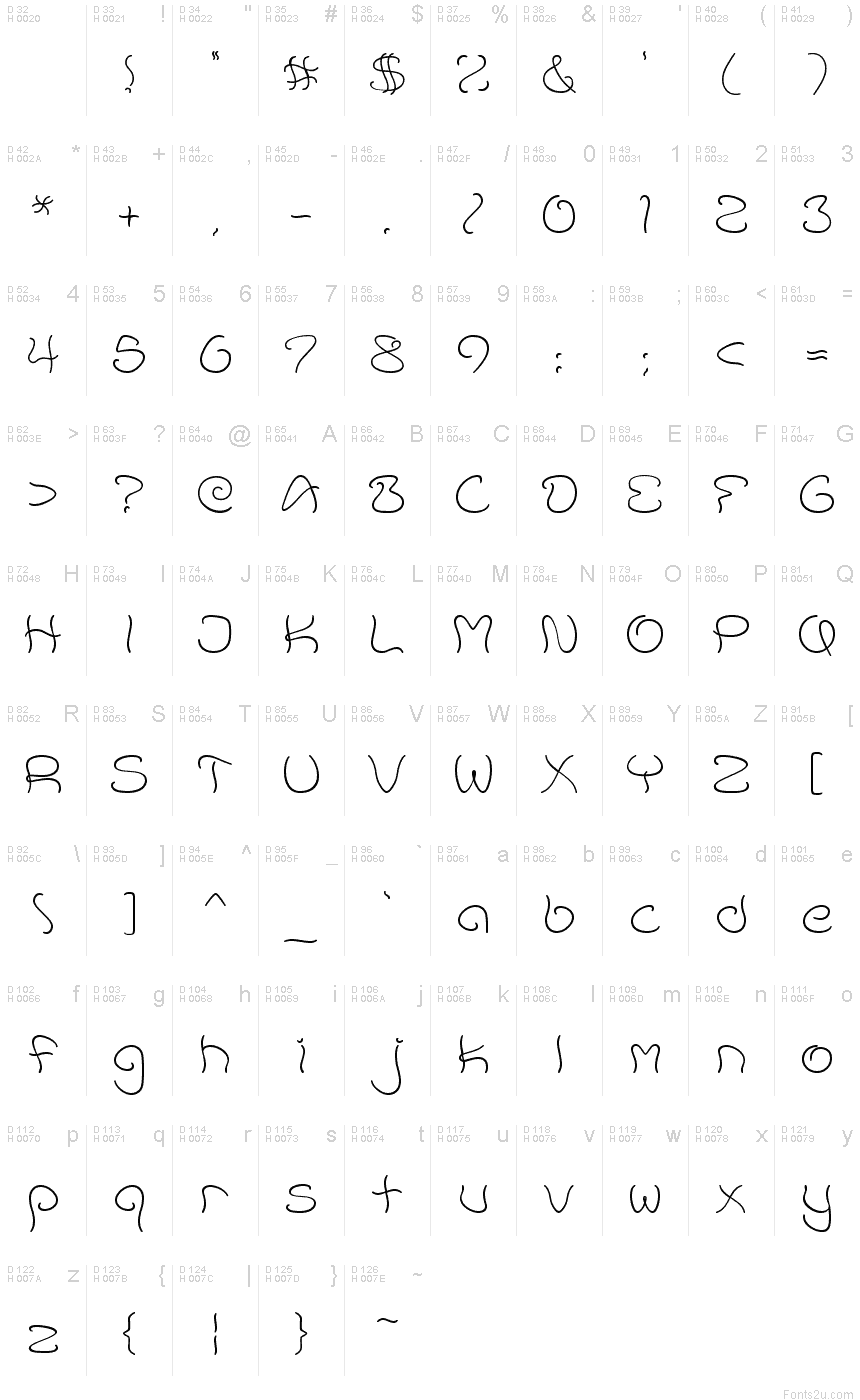
Accent Wet Noodle
Accent Wet Noodle is a captivating handwritten font that exudes a sense of playfulness and informality. Designed by Aaron Johnson, this light-weight typeface boasts a delightful, organic flow that evokes the fluid movements of a calligraphic brush. Its irregular, slightly uneven strokes lend a charming, hand-crafted aesthetic, making it an ideal choice for applications that demand a casual, personal touch - from greeting cards and invitations to branding and editorial design.
Accent Wet Noodle's versatility and distinctive personality make it a standout option for designers seeking to infuse their projects with a touch of whimsy and warmth.